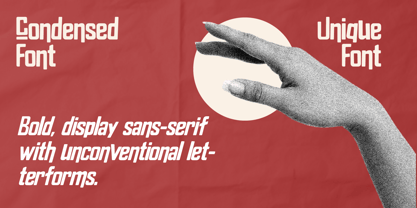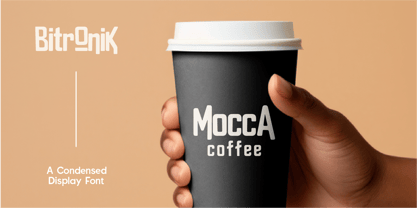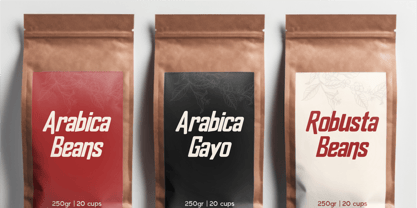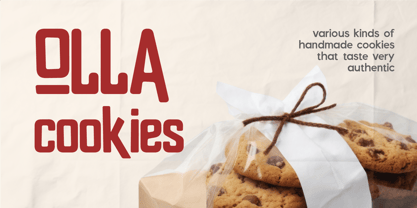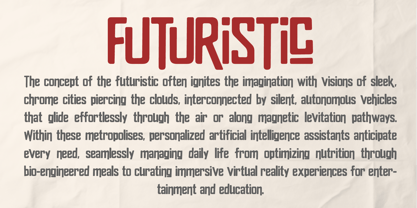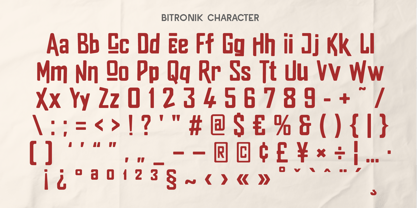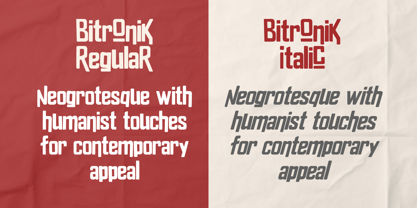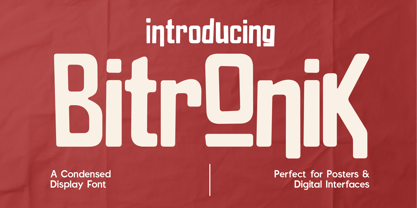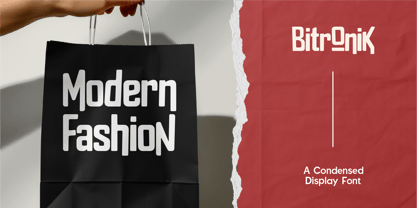
Bitronik – A Futuristic Condensed Display Font
Step into the future with Bitronik, a sharp, condensed display font crafted for the modern digital world. Its clean yet edgy letterforms feature subtle modular touches and geometric precision, making it perfect for tech-inspired designs, posters, UI interfaces, logos, and branding that needs a strong digital personality.
Bitronik balances boldness and clarity with a stylish flair, allowing your messages to look futuristic, innovative, and undeniably eye-catching.
- ⚡ Futuristic Energy: Tech-inspired forms with a unique condensed structure.
- 📱 Made for Digital: Optimized for screens, apps, UI/UX, and web design.
- 🎯 Versatile Impact: Works for branding, event posters, music visuals, and startups.
- 💬 Highly Readable: Maintains sharpness and clarity even at small sizes.
- 🌐 Multilingual Ready: Full character set with numbers, punctuation, and language support.
- Standard Character A-Z, a-z, 0-9, Punctuation & symbols
- Regular and Italic